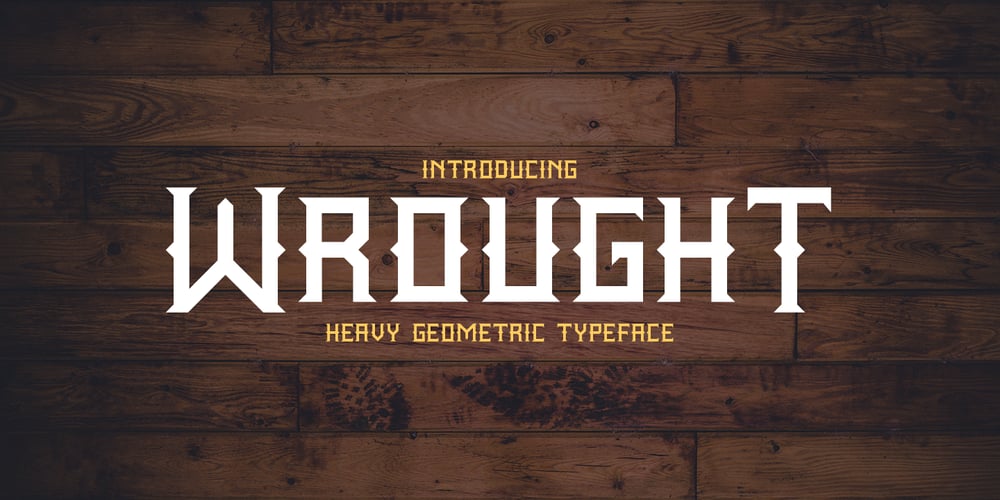
Wrought Font Family was designed by Jon Cartagena and published by Jon Cartagena. Wrought contains 4 styles and family package options. Wrought is a bold geometric display font by Jon Cartagena. It’s purpose is to give a rugged, heavy feeling to your designs. Wrought is available in four weights: Thin, Light, Regular, and Bold. Each character is carefully designed to be vertically aligned at the center. This gives Wrought a unique flair, while promoting a harmonious look through each word.